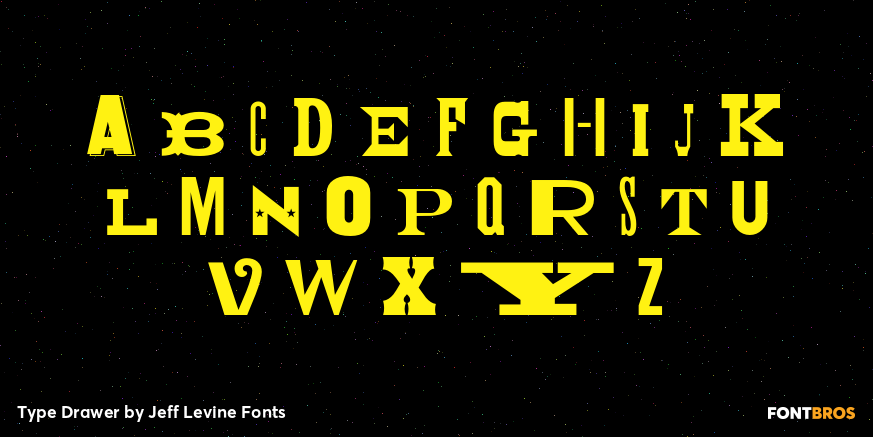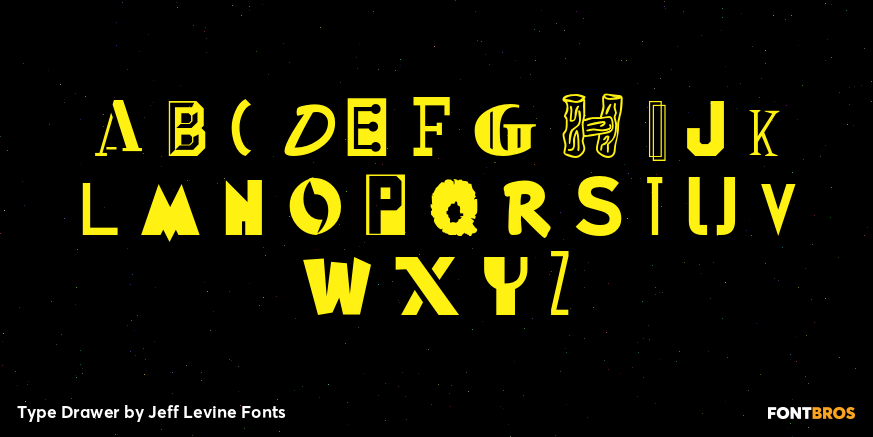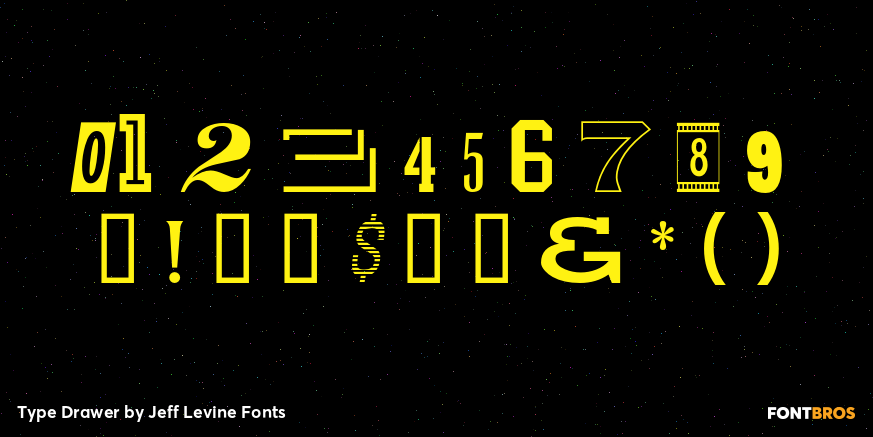
Type Drawer
Type Drawer JNL is an assortment of various letter and number styles for use in novelty headlines. Limited character set.
Type Drawer by Jeff Levine Fonts